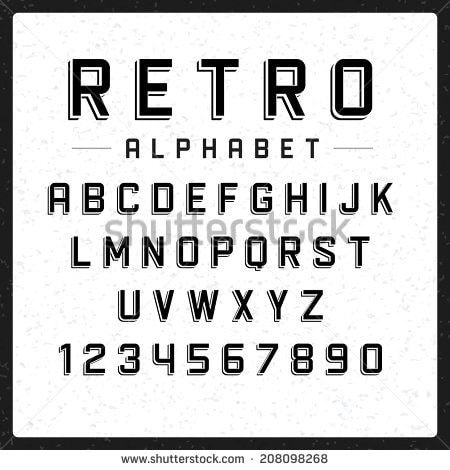
az retro
AZ Retro Font offers a nostalgic design in OTF, TTF, and WOFF formats. Ideal for retro-themed projects, posters, and branding designs.
Embrace the Nostalgia with AZ Retro Font
AZ Retro Font, created by an innovative designer in 2023, encapsulates the charm of retro aesthetics, appealing to a variety of design purposes. Perfect for crafting vibrant posters, eye-catching signage, and unique branding projects, this font brings a touch of vintage flair to any creative endeavor.
Key Features and Available Formats of AZ Retro Font
The Inspiration Behind AZ Retro Font
AZ Retro Font draws inspiration from the vibrant colors and playful designs of the 1970s and 1980s, embracing a fun and funky style. Created with attention to detail, each glyph reflects the spirit of that era, making it an excellent choice for designers looking to evoke nostalgia and creativity.
Best Uses for AZ Retro Font
This typeface is particularly suited for retro-themed projects, music festival posters, game design, and merchandise branding. Its unique characteristics and vibrant style allow it to stand out, ensuring that your designs are not only memorable but also fun and engaging.